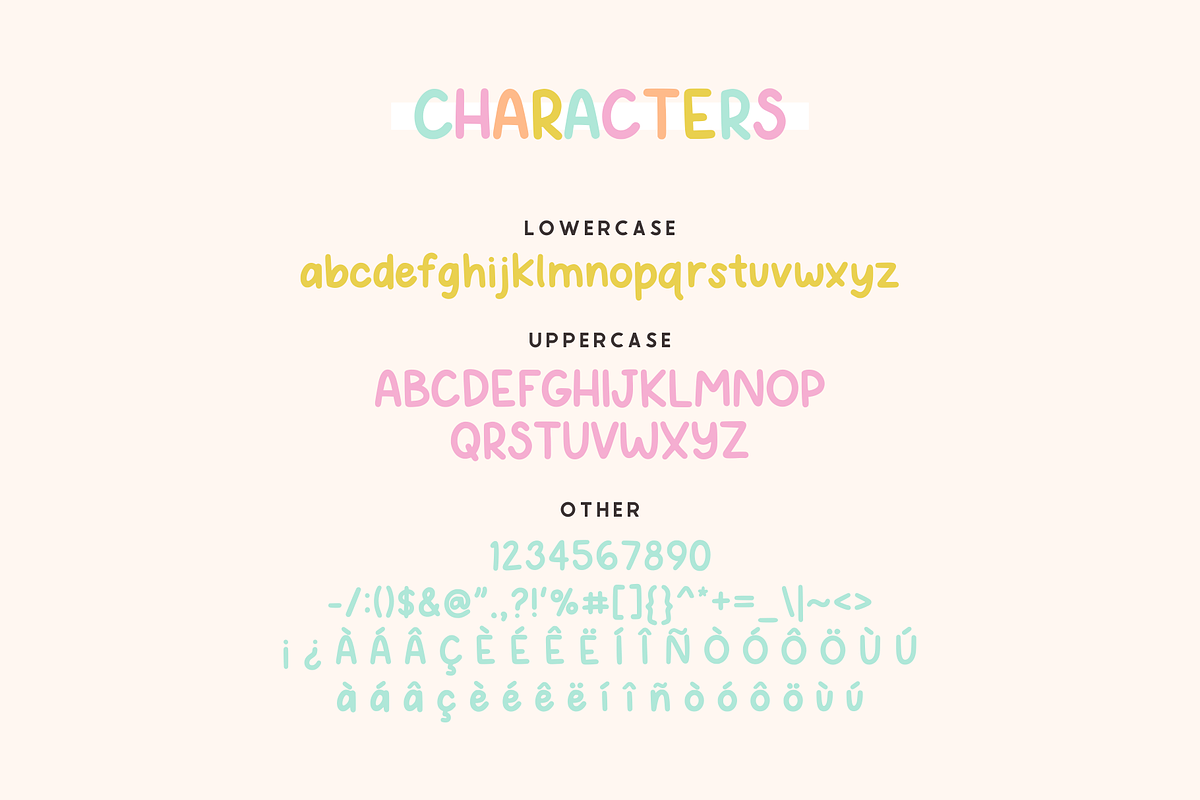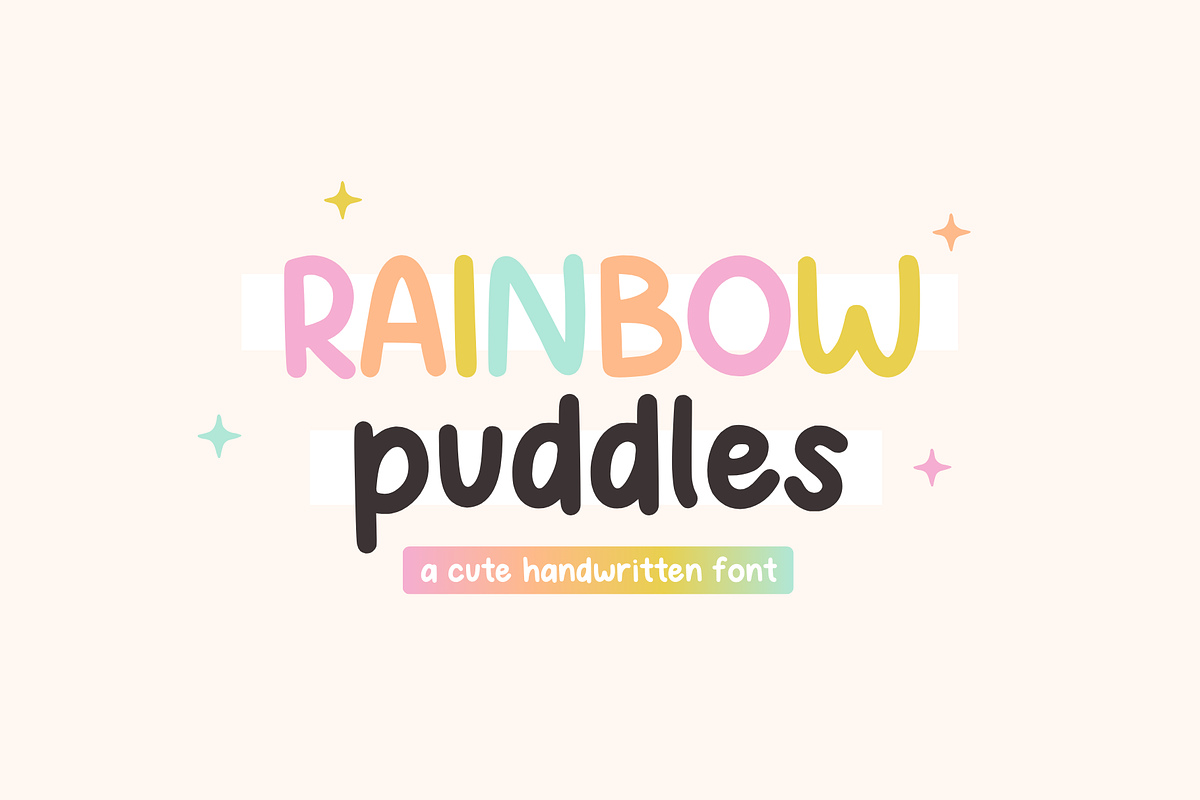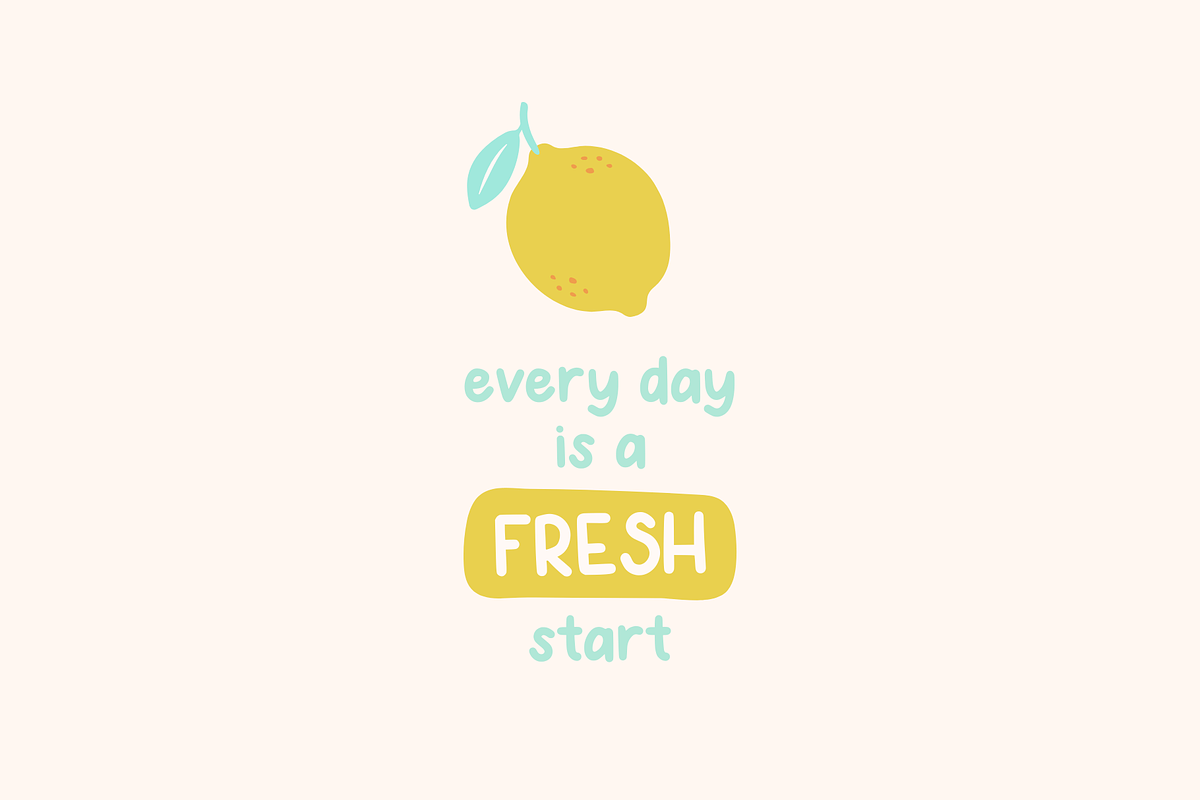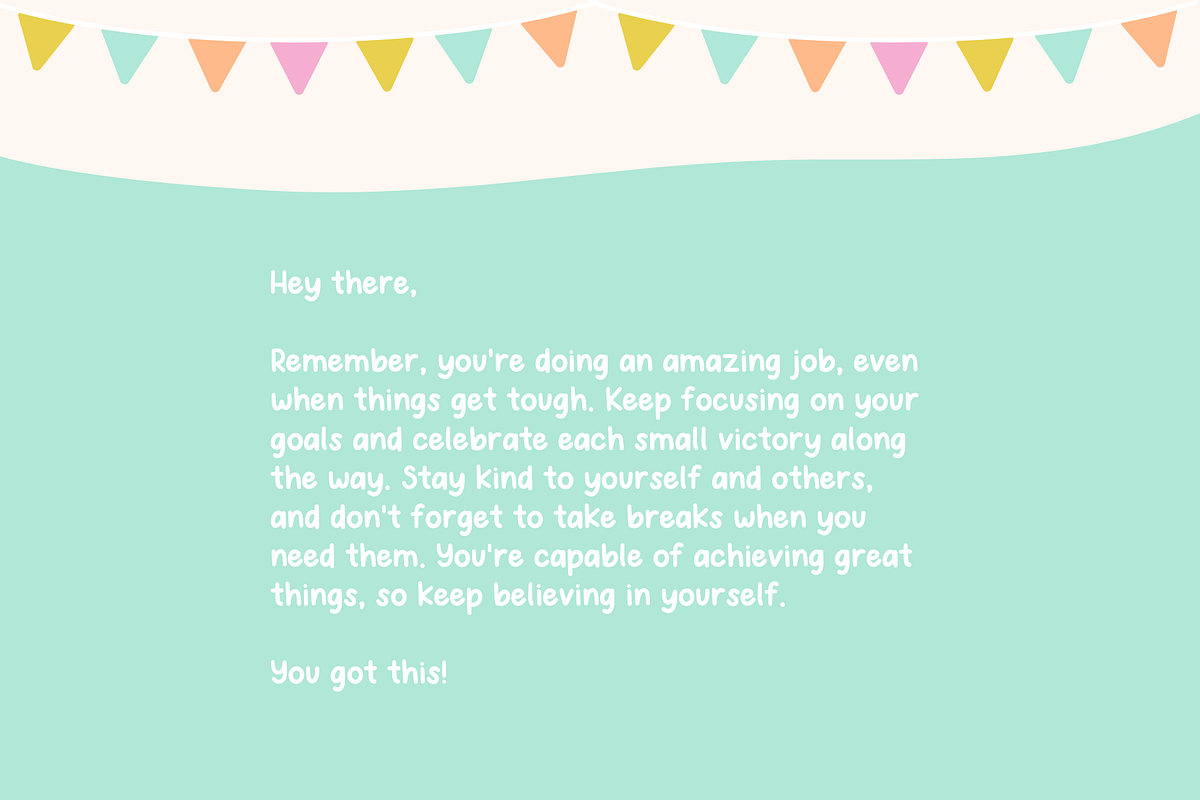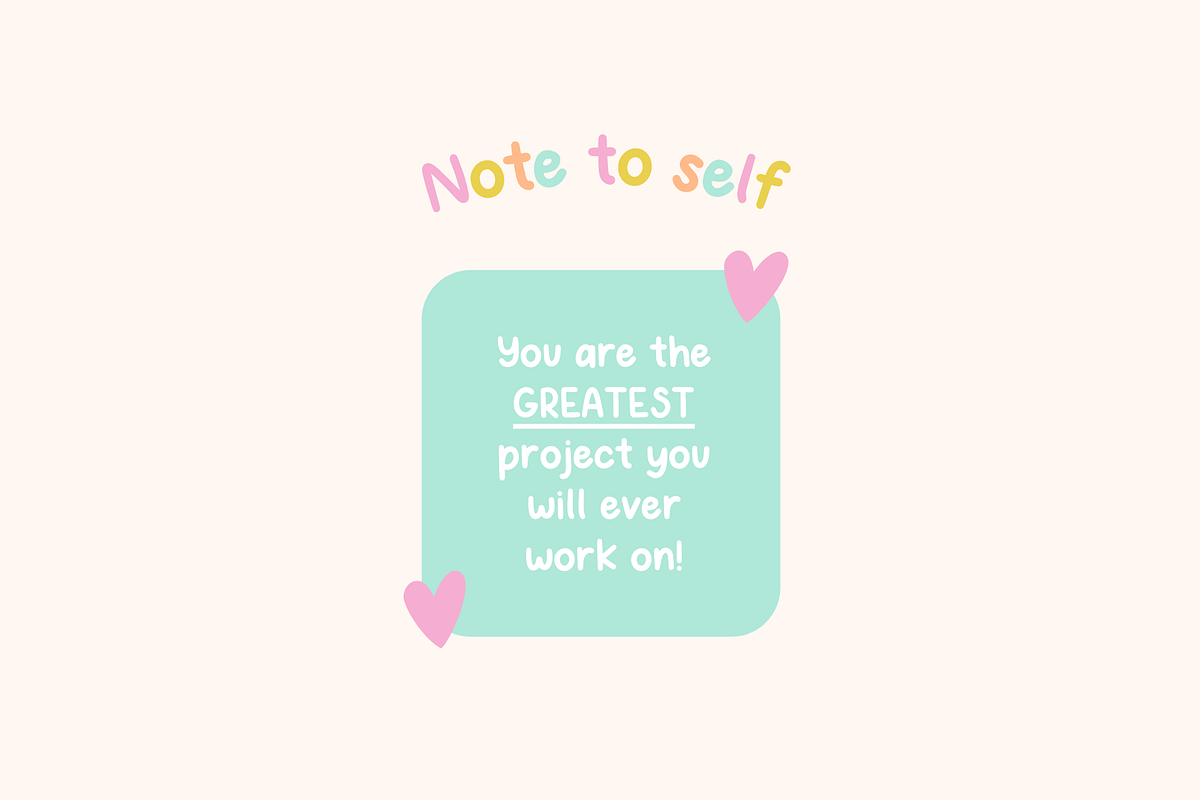
Rainbow Puddles Handwritten Font
Add a splash of charm to your projects with our Rainbow Puddles font! This adorable, playful handwriting font is perfect for adding a touch of personality to your daily planning, journaling, and creative endeavors. Designed with love and care, Rainbow Puddles brings a delightful, hand-crafted feel to your work, making every entry stand out.